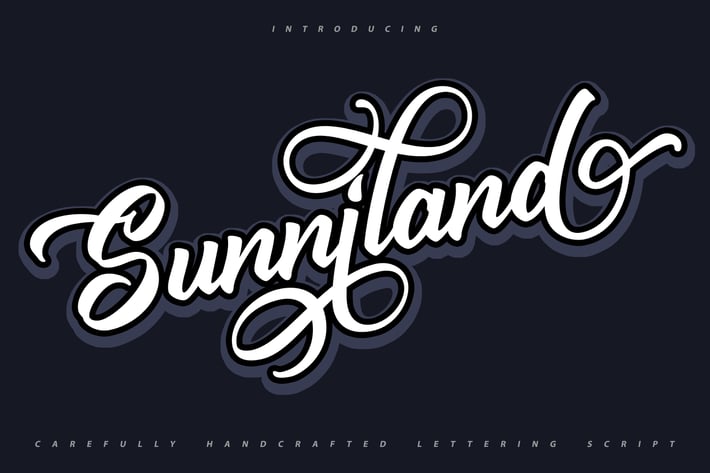
Sunniland | Handcrafted Script Font
Sunniland | Handcrafted Script Font with a calligraphy style, So beautiful on invitation like greeting cards, branding materials, business cards, quotes, posters, and more!